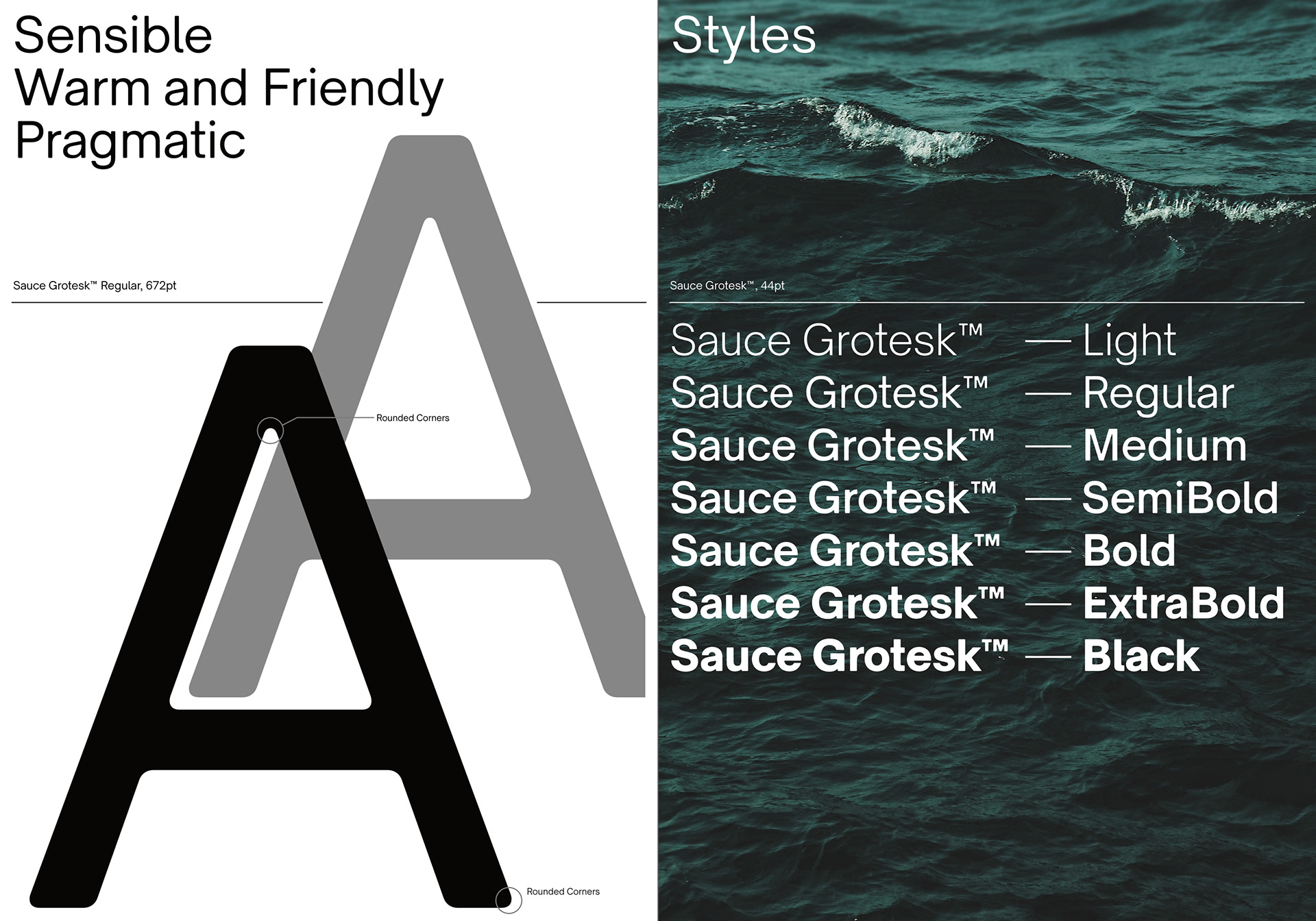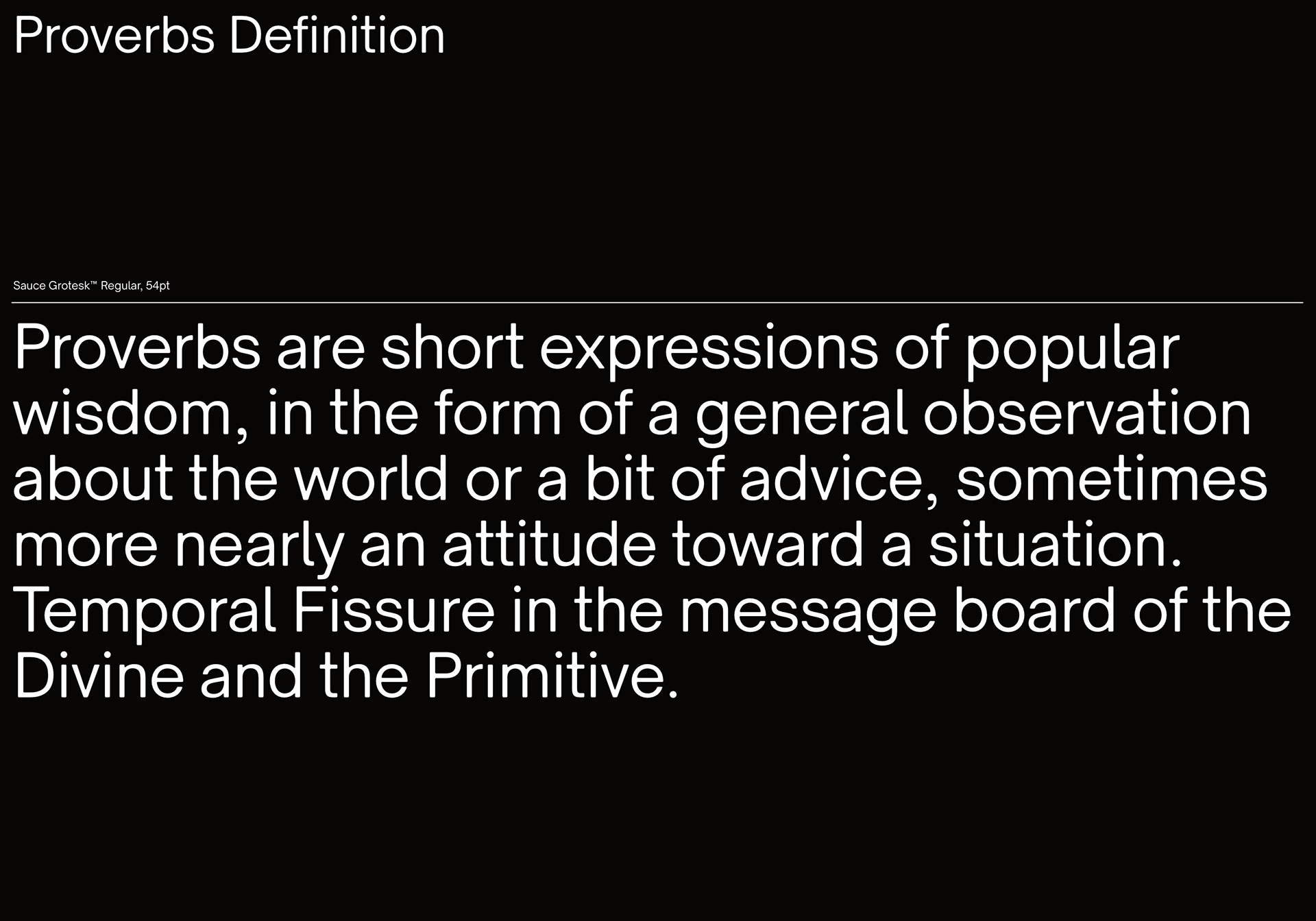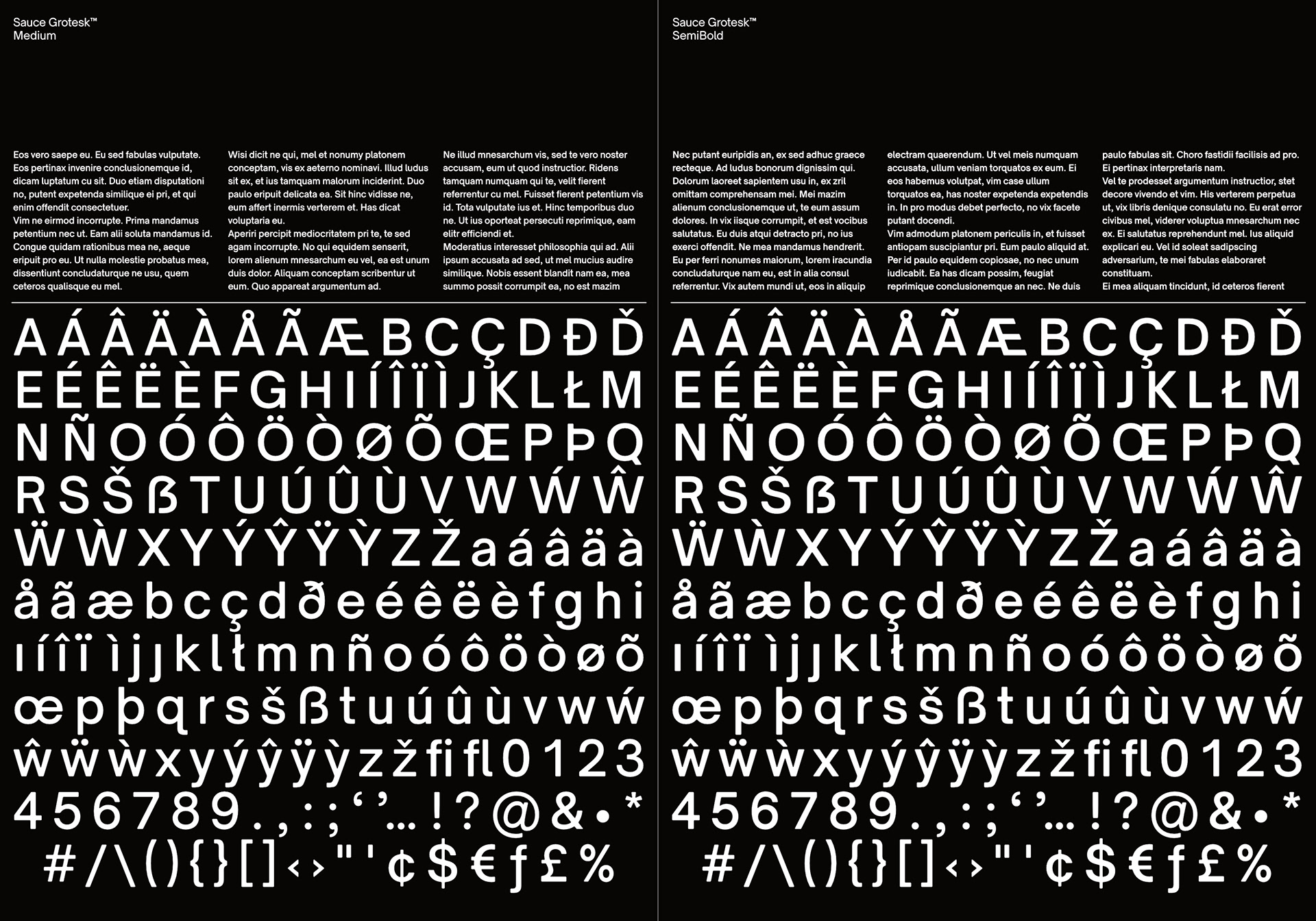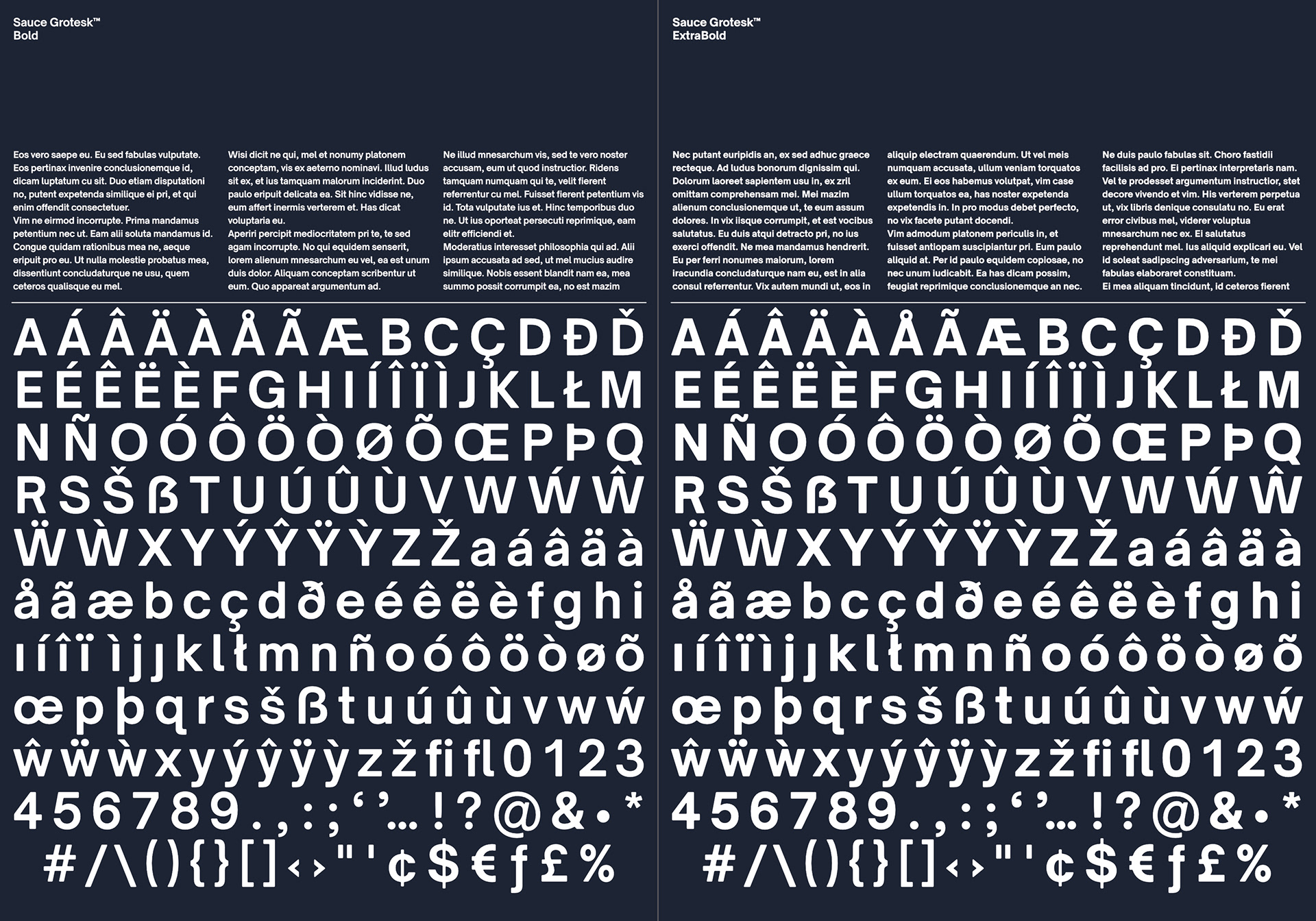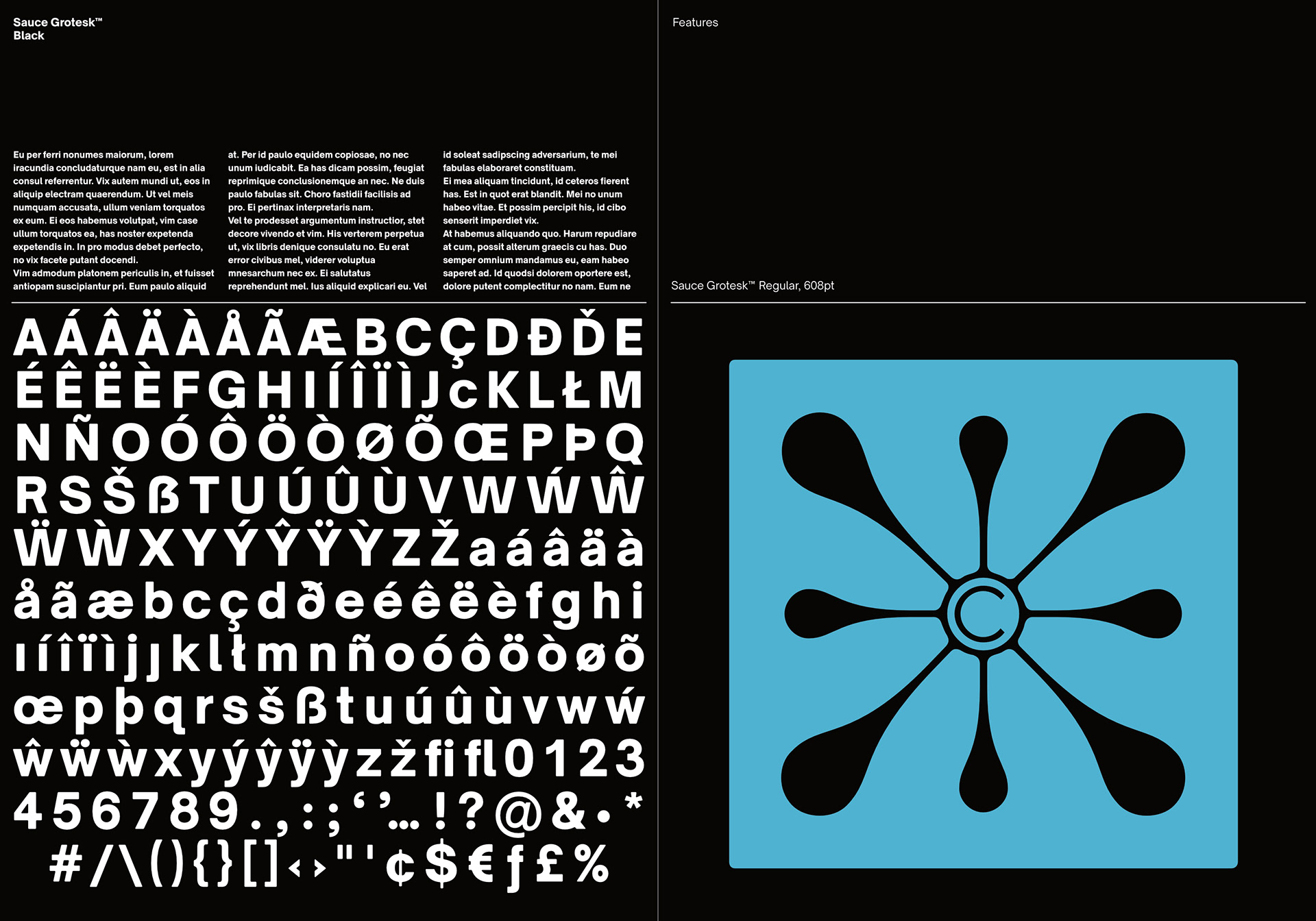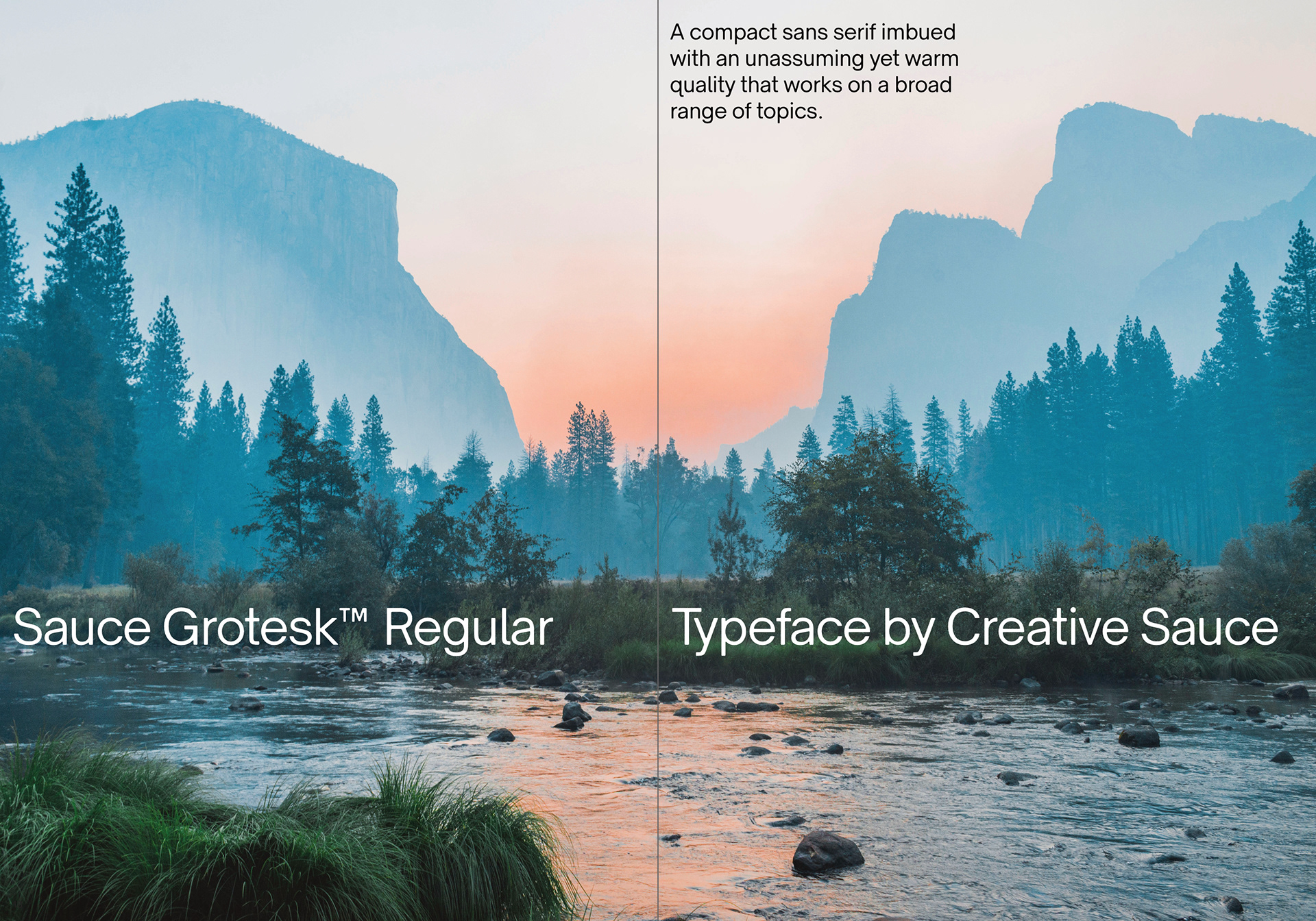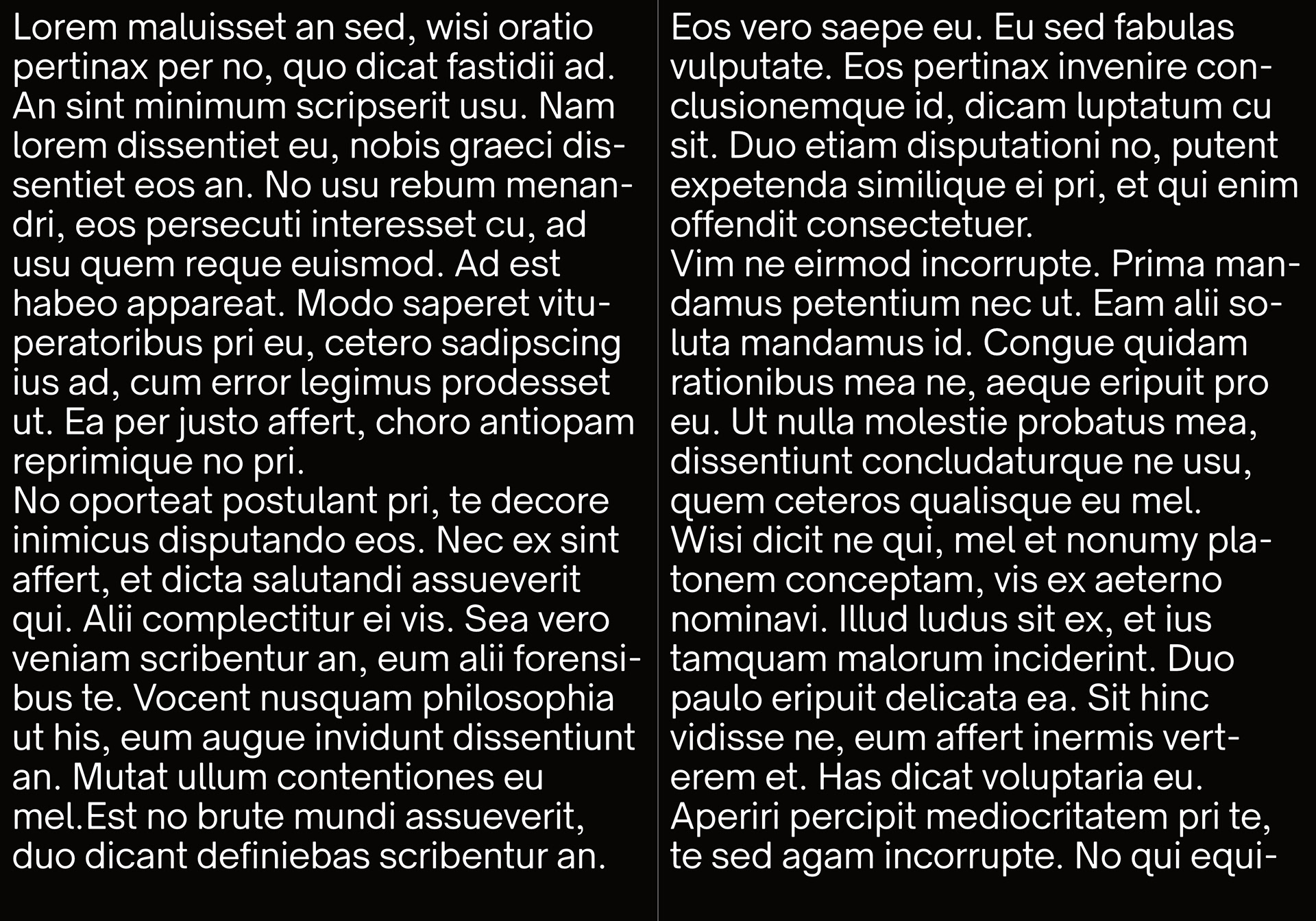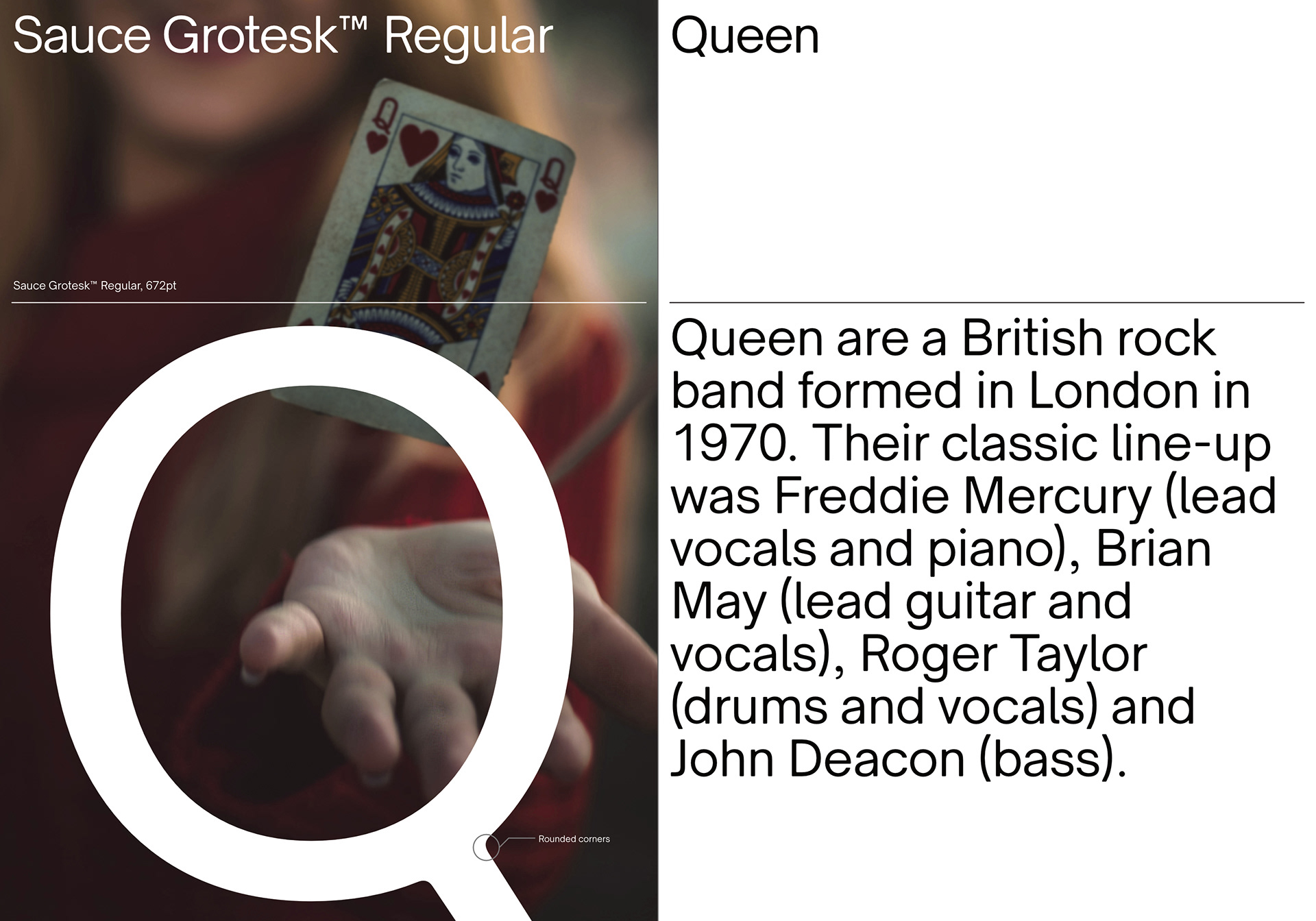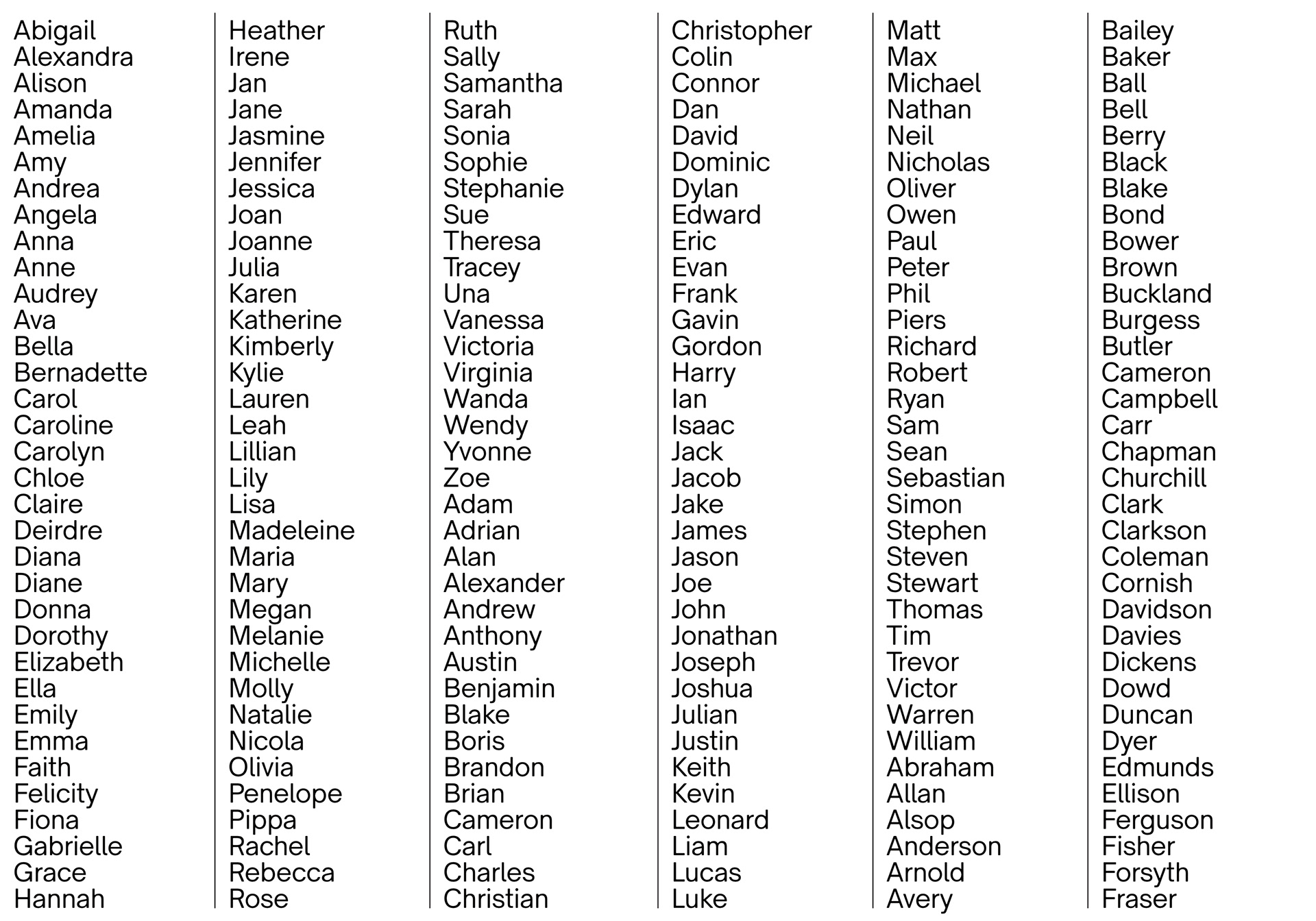
Sauce Grotesk™ is a sans serif typeface that we developed for Creative Sauce's internal type system. It is a compact typeface much like the classic unassuming sans serif grotesques but with softer features that shows fluidity and a sense of easiness. We wanted a typeface that can relate to a broader audience for maximum message clarity while maintaining aesthetic qualities.
Design: James Birch and Alfredo Marco Pradil
Development: Alfredo Marco Pradil
Company: Creative Sauce
Class: Sans Serif, Modern Grotesque, Soft
Afrikaans, Albanian, Asu, Basque, Bemba, Bena, Catalan, Chiga, Cornish, Danish, Dutch, English, Estonian, Faroese, Filipino, Finnish, French, Friulian, Galician, German, Gusii, Icelandic, Indonesian, Irish, Italian, Kabuverdianu, Kalenjin, Kinyarwanda, Low German, Luo, Luxembourgish, Luyia, Machame, Makhuwa-Meetto, Makonde, Malagasy, Malay, Manx, Morisyen, North Ndebele, Norwegian Bokmål, Norwegian Nynorsk, Nyankole, Oromo, Portuguese, Romansh, Rombo, Rundi, Rwa, Samburu, Sango, Sangu, Scottish Gaelic, Sena, Shambala, Shona, Soga, Somali, Spanish, Swahili, Swedish, Swiss German, Taita, Teso, Vunjo, Welsh, Western Frisian, Zulu